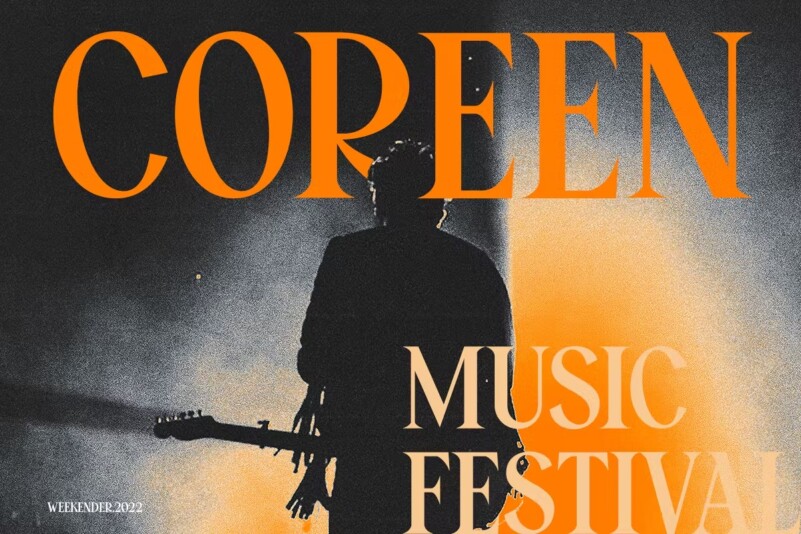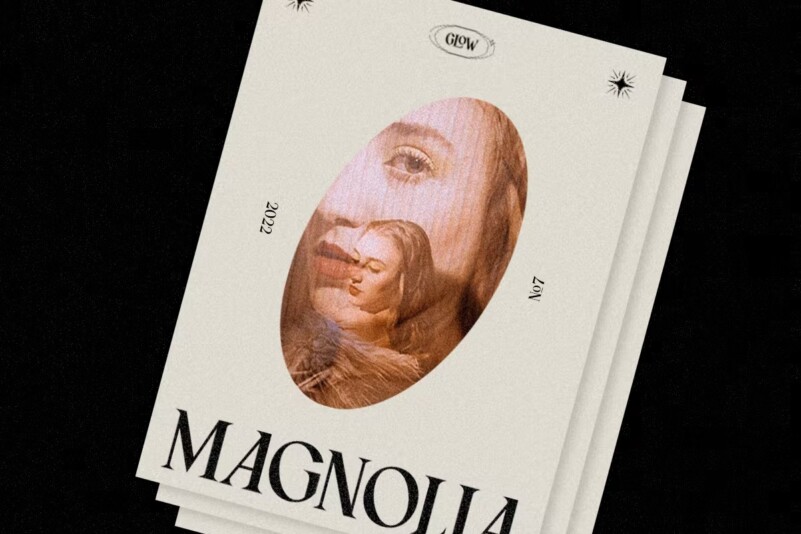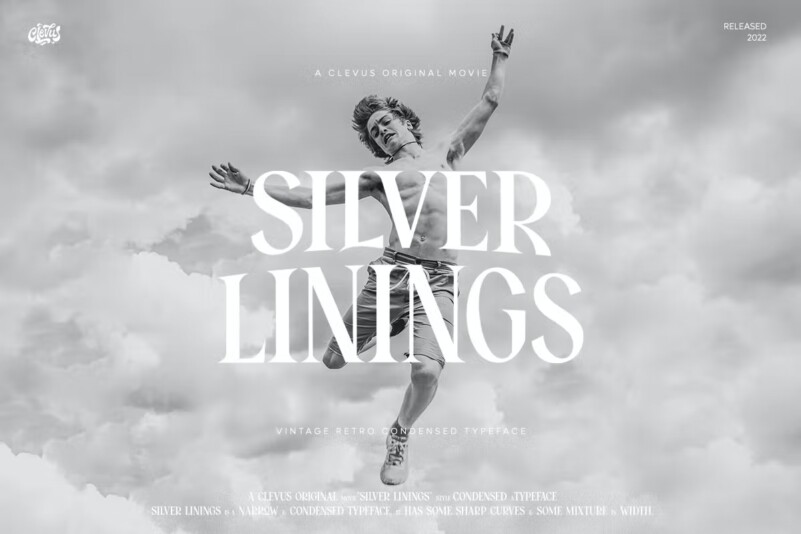
Silver Linings Font
Say hello to Silver Linings , a chic serif digest inspired by 80s magazines, with a complementary tiny version. In true 80s style, they also come in condensed form in varying degrees: mix and match them to create eye-catching effects.
Remember to use all caps when mixing and matching characters: it adds contrast and impact to your typography.
Design tips! : Tighten the spacing between letters for large headings to create a range of different looks.
Comes with alternatives and ligatures, it can create stunning magazine images, quotes, articles, blog posts, branding projects, logo, poster and much more.